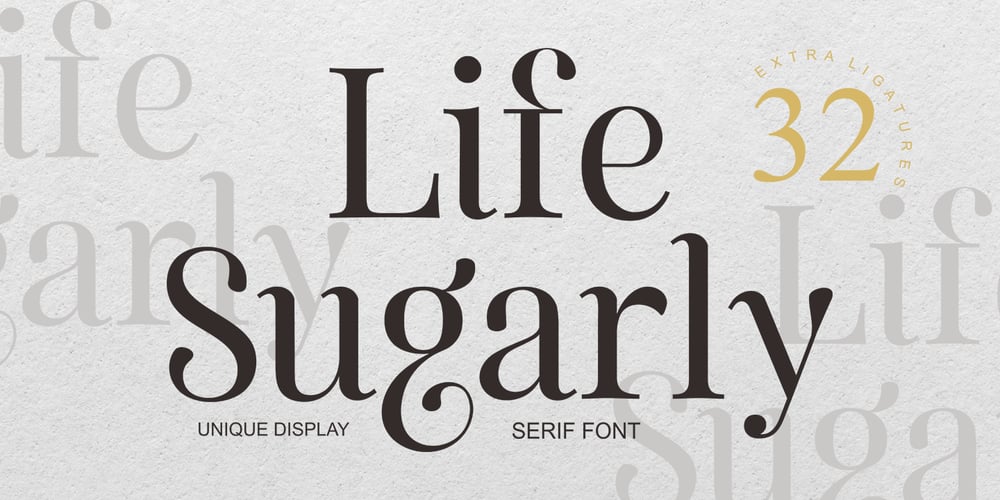
Life Sugarly Font Family was designed by Teuku Muhammad Zaki and published by Zaki Creative. Life Sugarly contains 1 styles and family package options. Life Sugarly is an Unique Display serif font with luxury, elegant, modern, unique and classy-look. This font crafted specials for beauty-themed projects, ready to use on Magazine, Social Media, Branding, Logo, and Many more that needs Modern touches.Life Sugarly is also included full set of: uppercase and lowercase letters multilingual characters numerals punctuation Wish you enjoy our font!